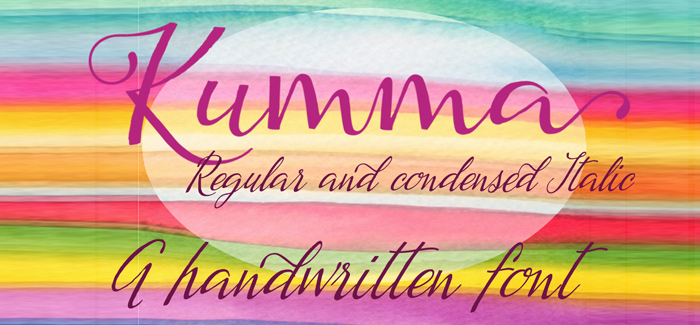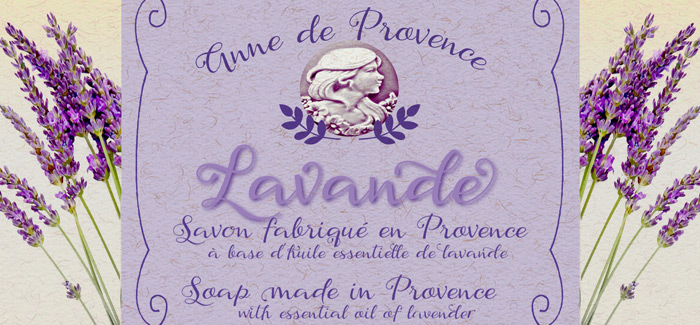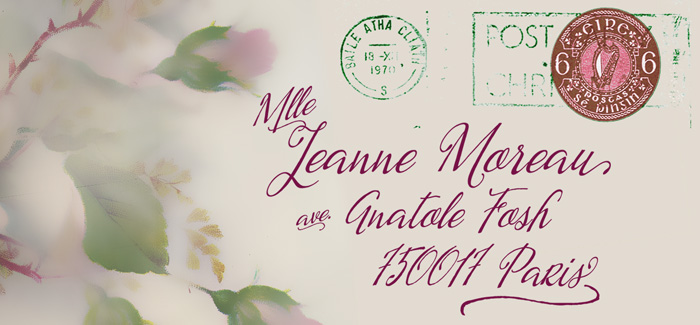
Kumma font
Kumma font by Eurotypo (Ameglia, Aleka, Lavinia) is a charming script face developed in two styles – regular and condensed italic. Designed with great attention to every detail, Kumma is keeping the freedom and joyness of natural handwriting and at the same time looking a bit serious and authentic in long text paragraphs. Kumma font has a lot of options for personalization like swashes, ligatures, alternate and is equipped with extended character set of multilingual diacritics. Great choice if you decide to use it for wedding invitation, valentine card, food packaging, t-shirts, headlines and posters. Excellent performance both for print and screen graphics.